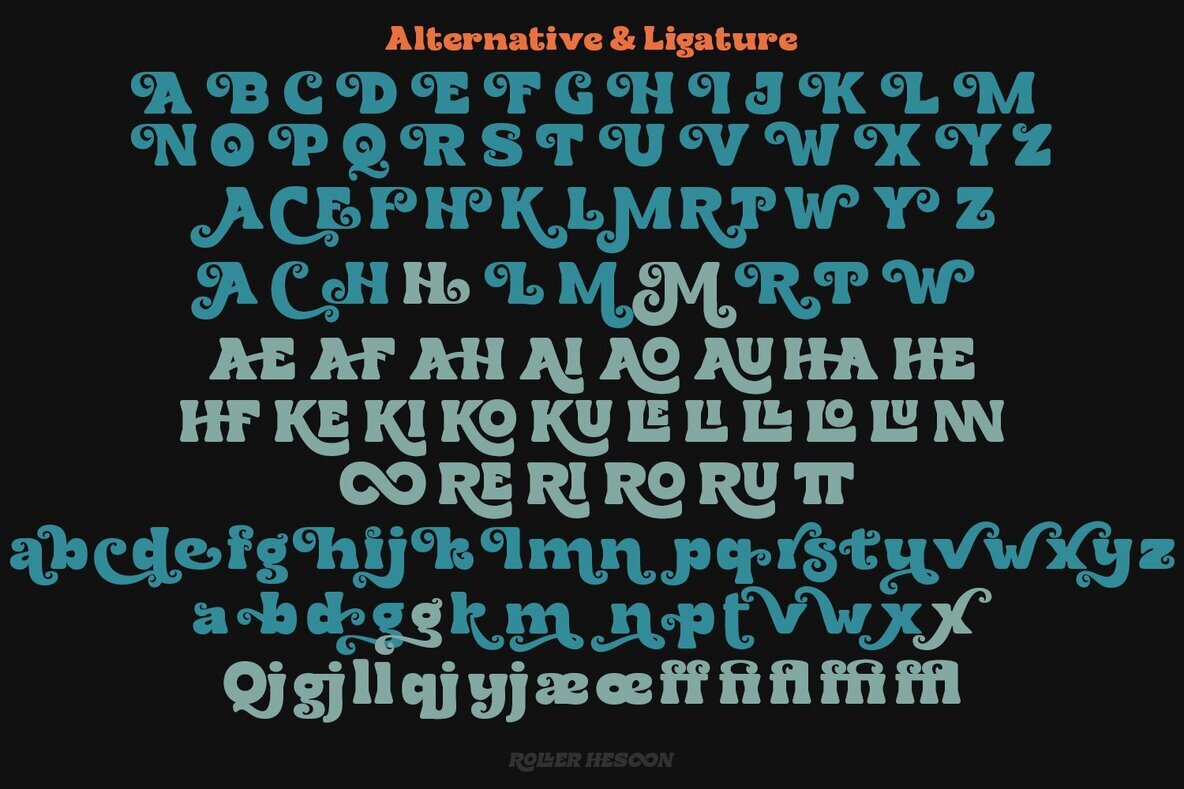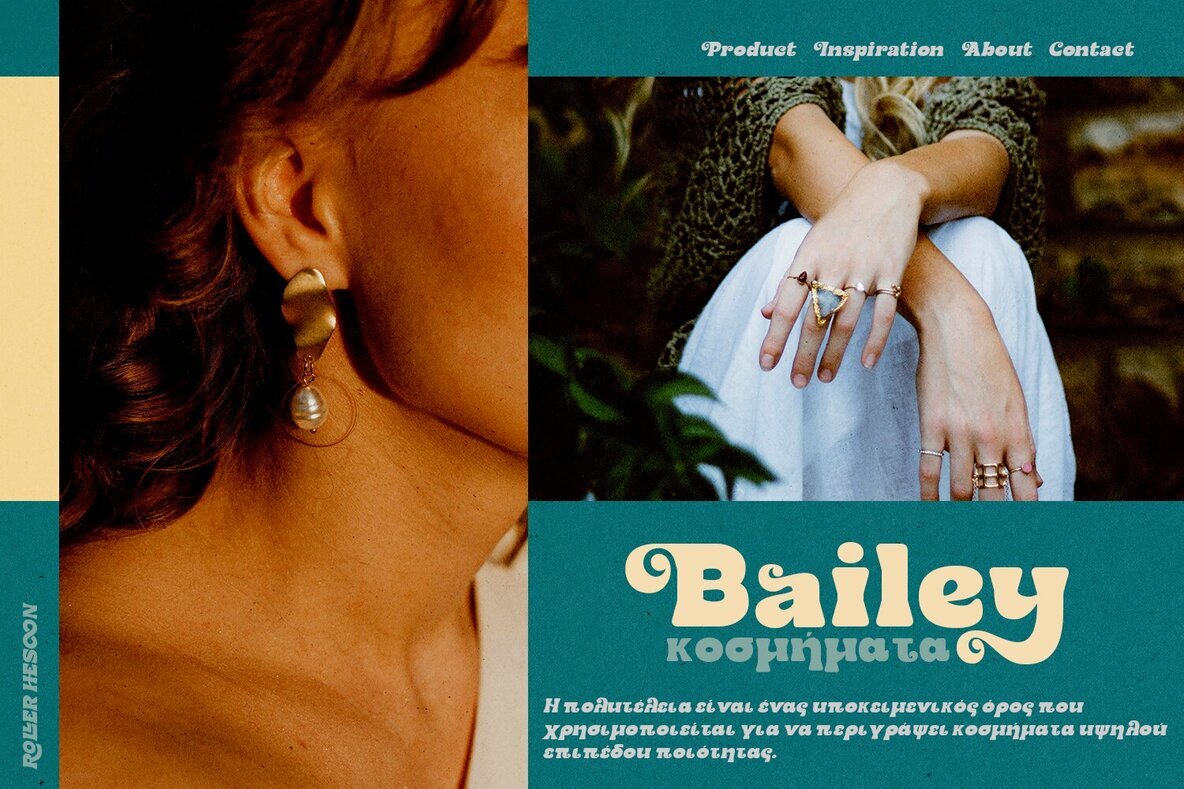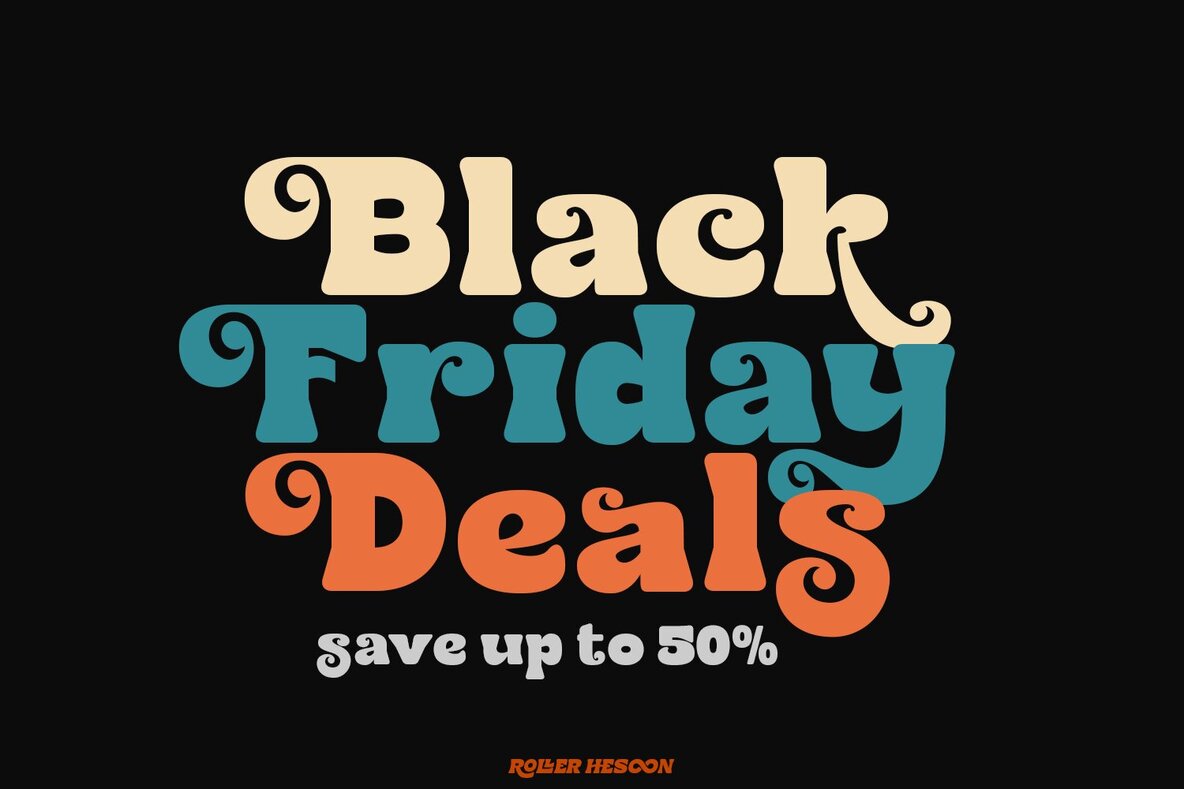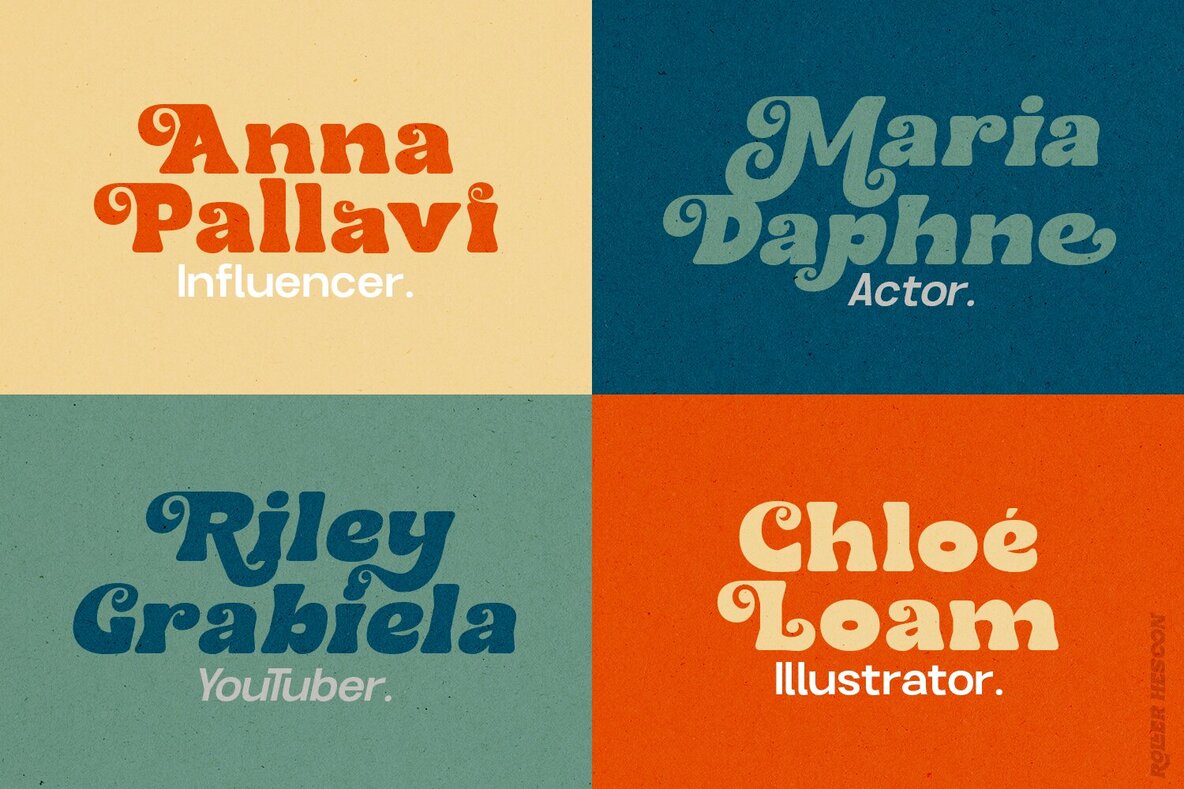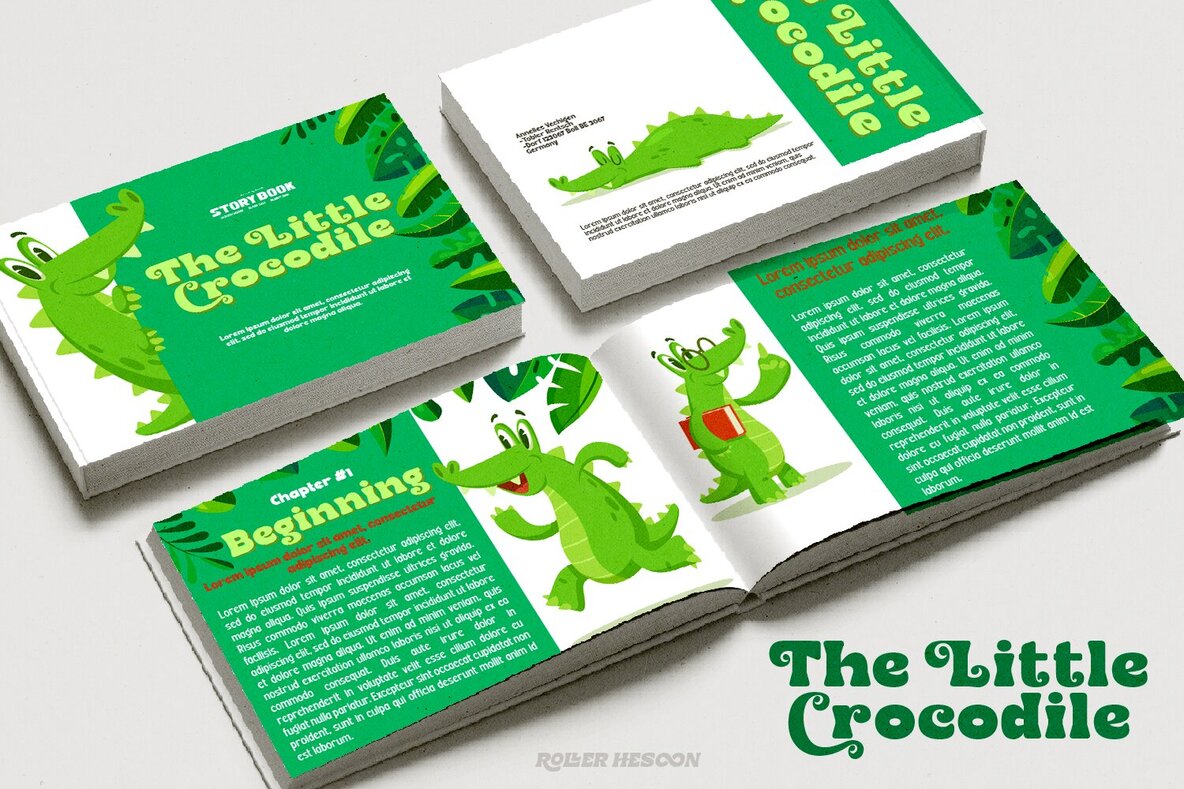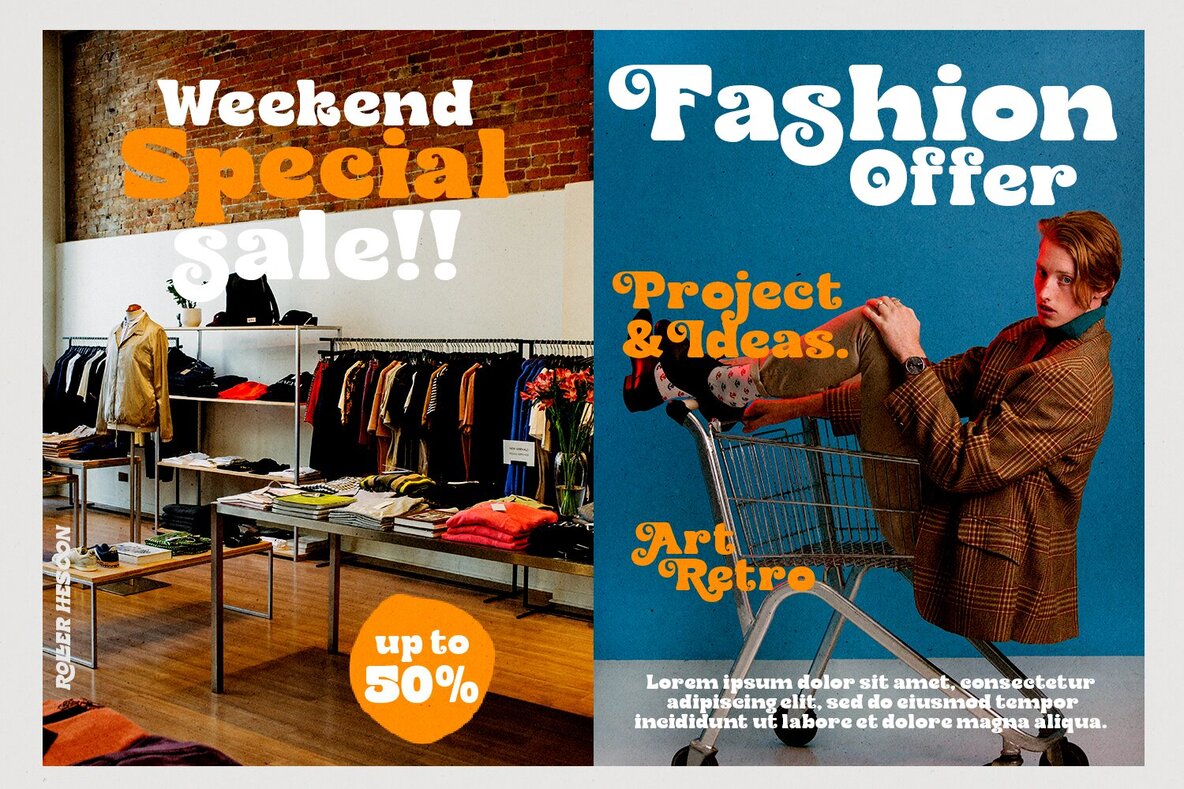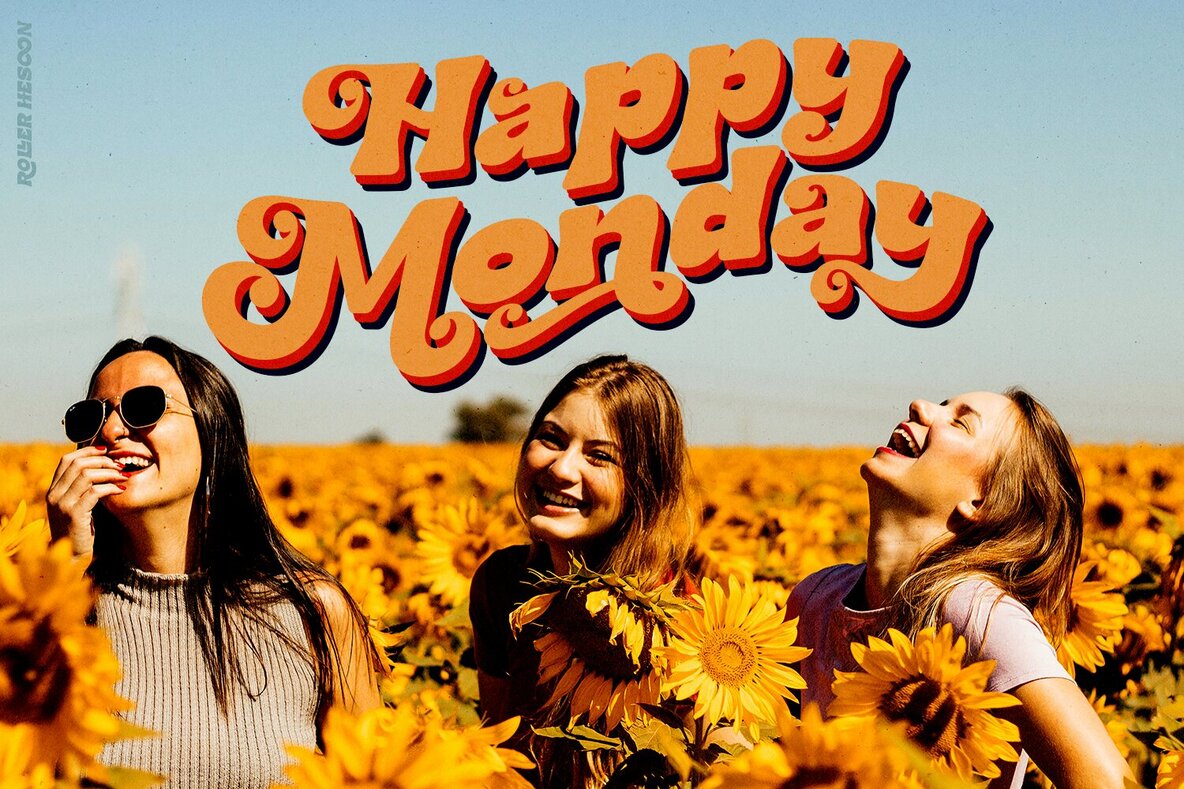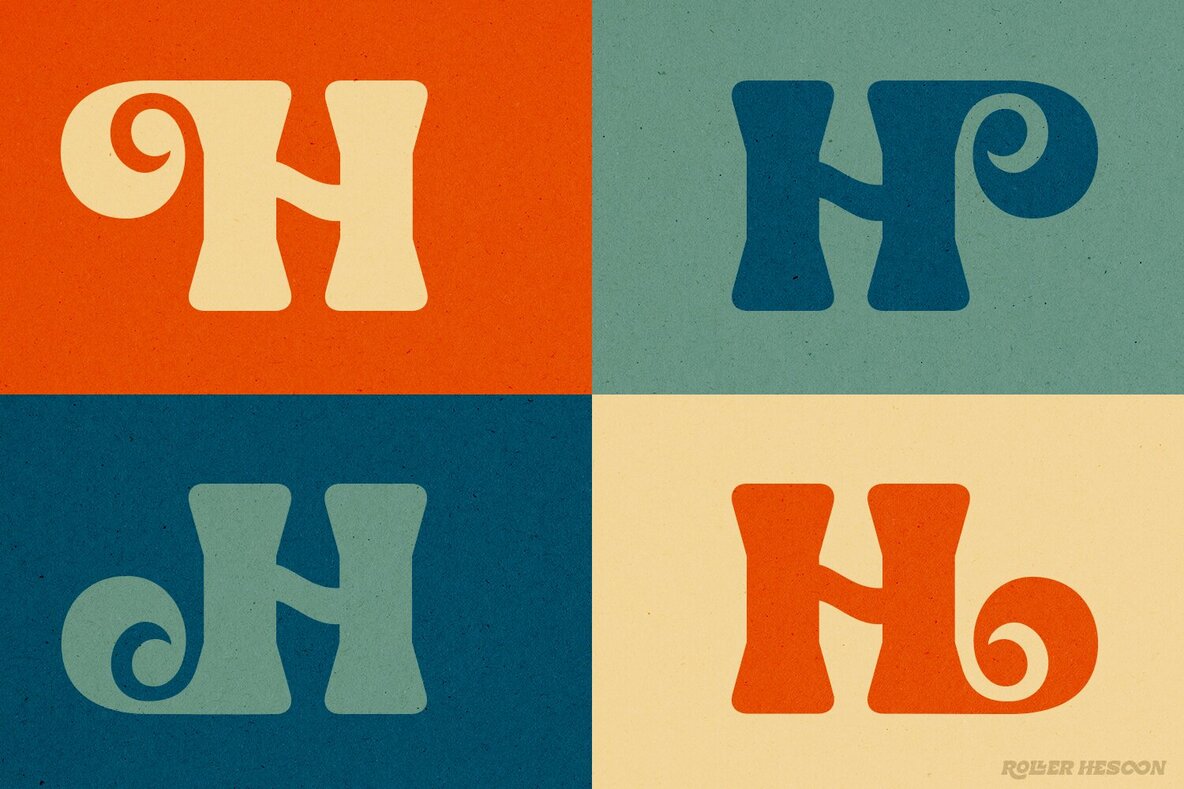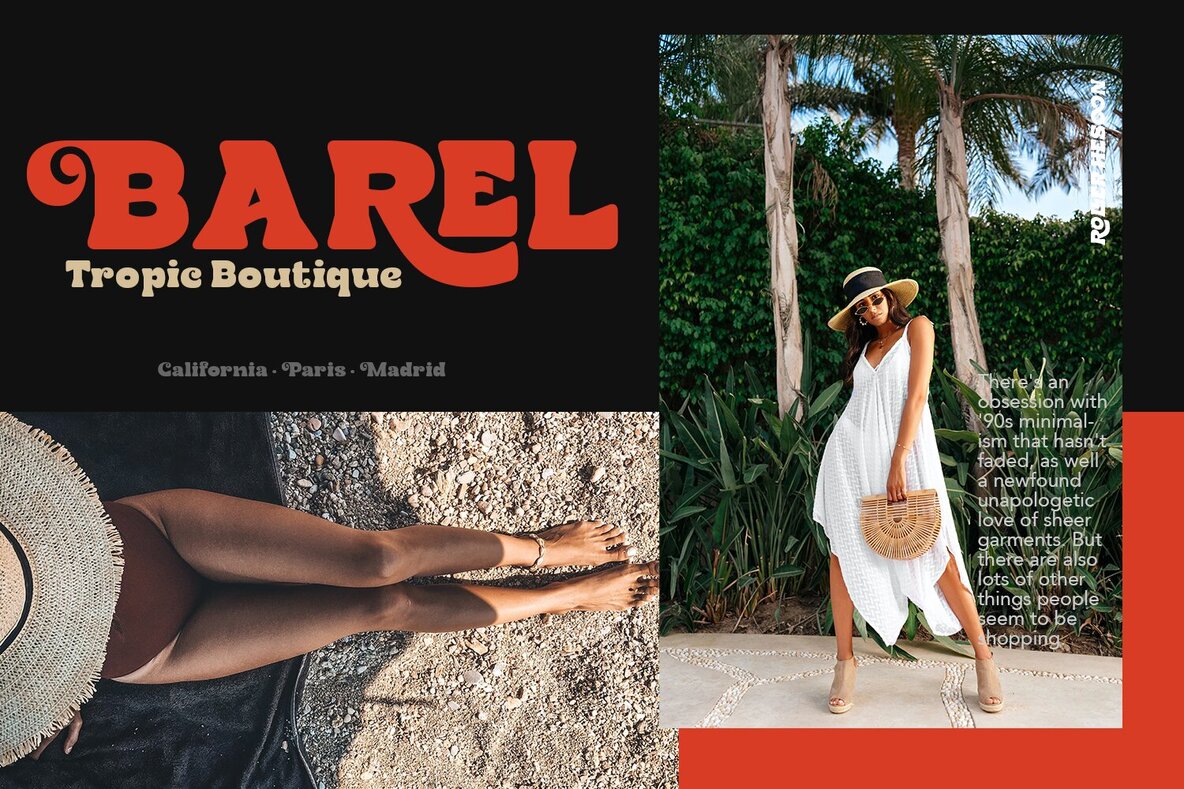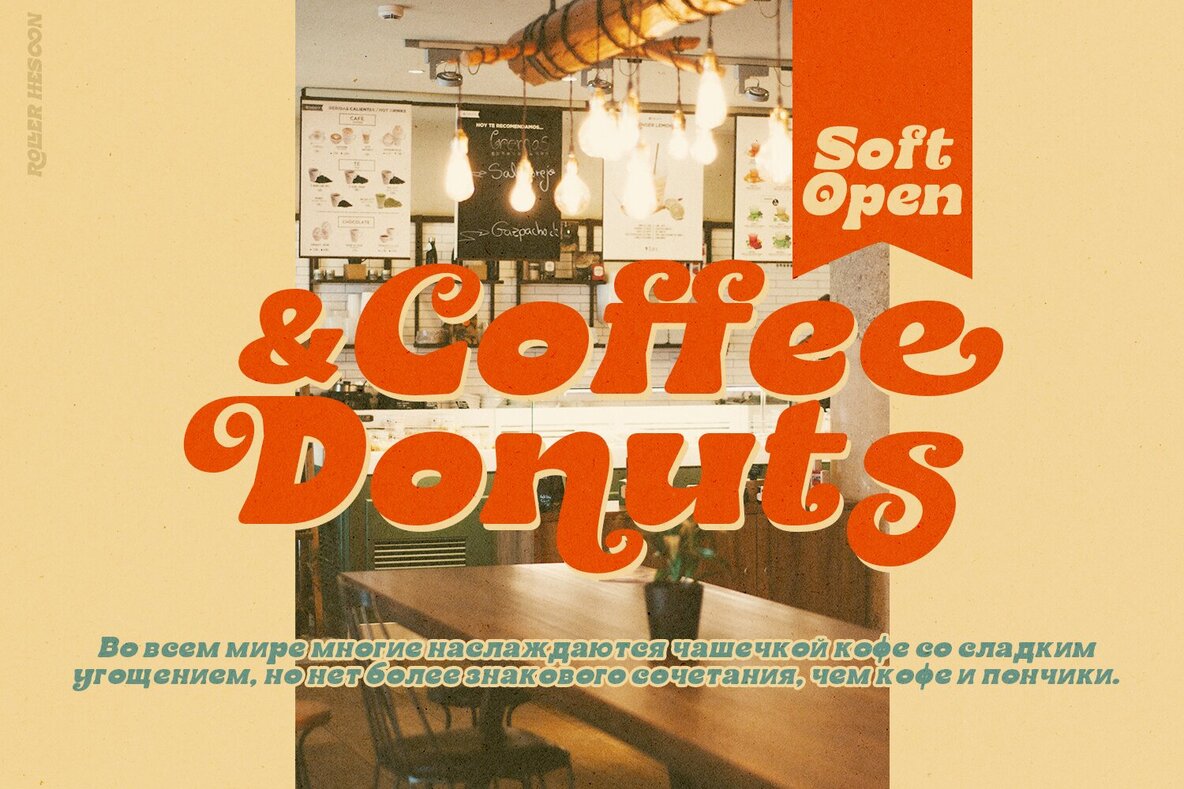
Roller Hoseen Font
Retro and refined you can explore and combine creating rhythm for comfortable reading. Roller Hesoon supports more than 100 Latin-based languages and has extensive Cyrillic and Greek support for languages like Russian, Bulgarian, Ukrainian, and many more.